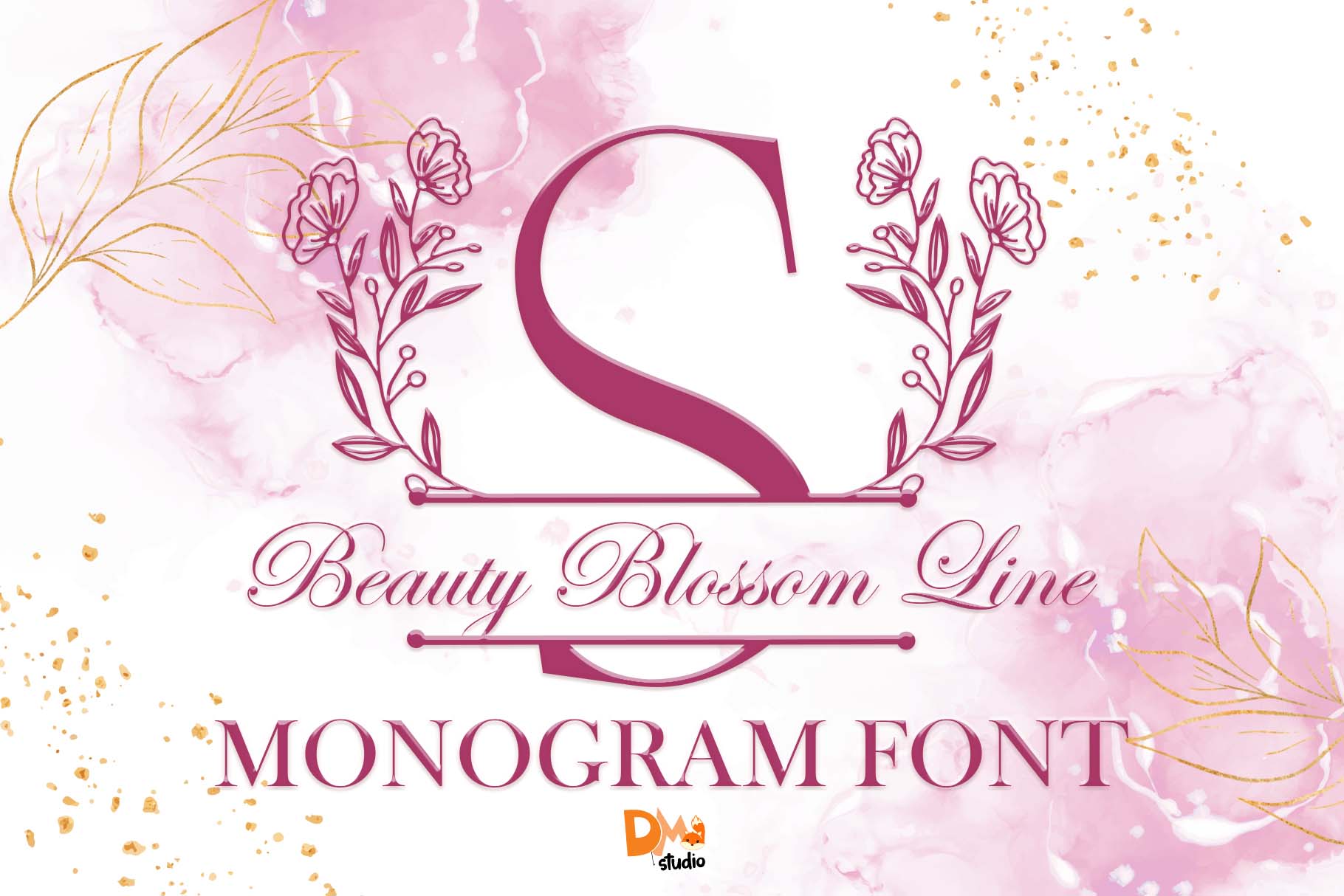
Beauty Blossom Line Monogram
Beauty Blossom Line Monogram – Elegant Floral Line Monogram Font
Beauty Blossom Line Monogram is a delicate and graceful monogram font featuring hand-drawn floral line art. With its refined blossom accents and minimalistic elegance, this typeface is perfect for wedding stationery, personalized branding, boutique packaging, and sophisticated design projects. Each letter is uniquely crafted with floral line details, bringing a soft, romantic charm to your creative work.
• Elegant Floral Line Art – Monogram letters adorned with fine blossom-inspired illustrations.
• Refined & Versatile Style – Combines elegance with a clean monoline aesthetic.